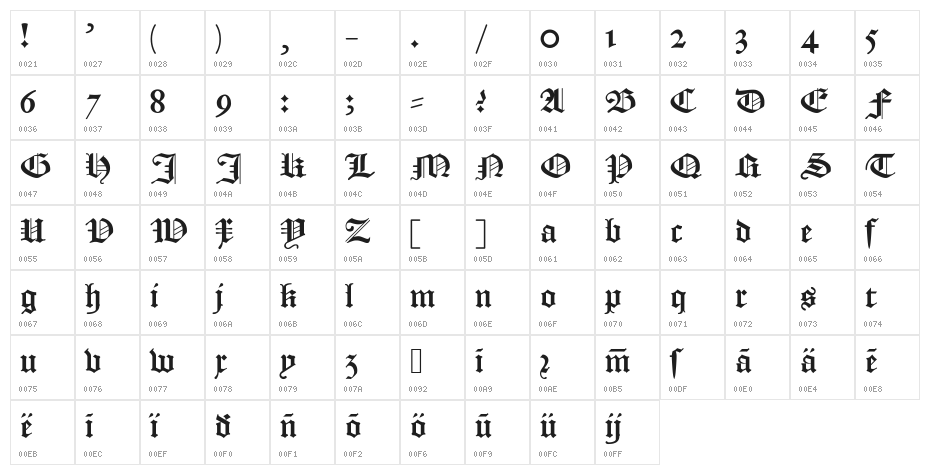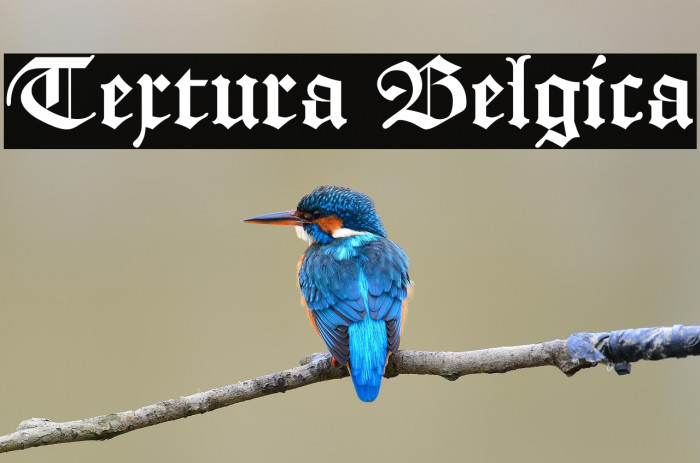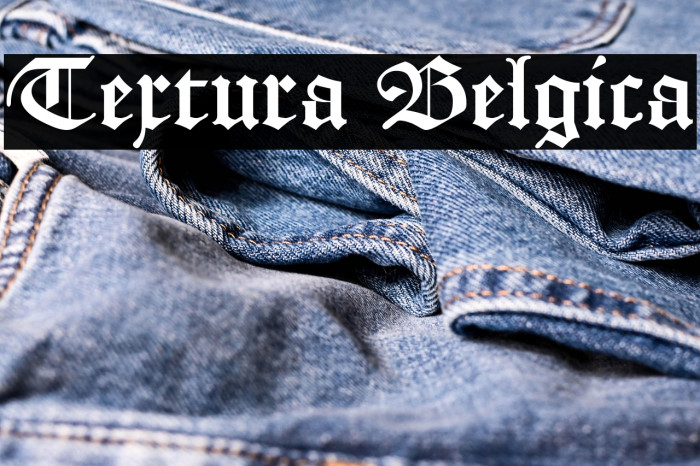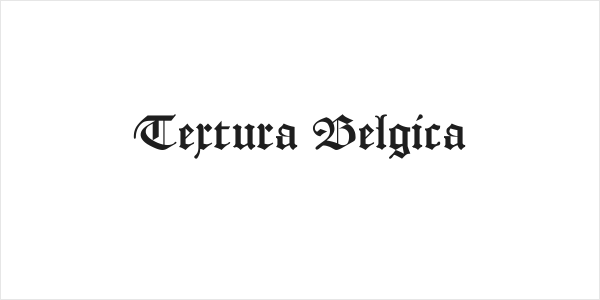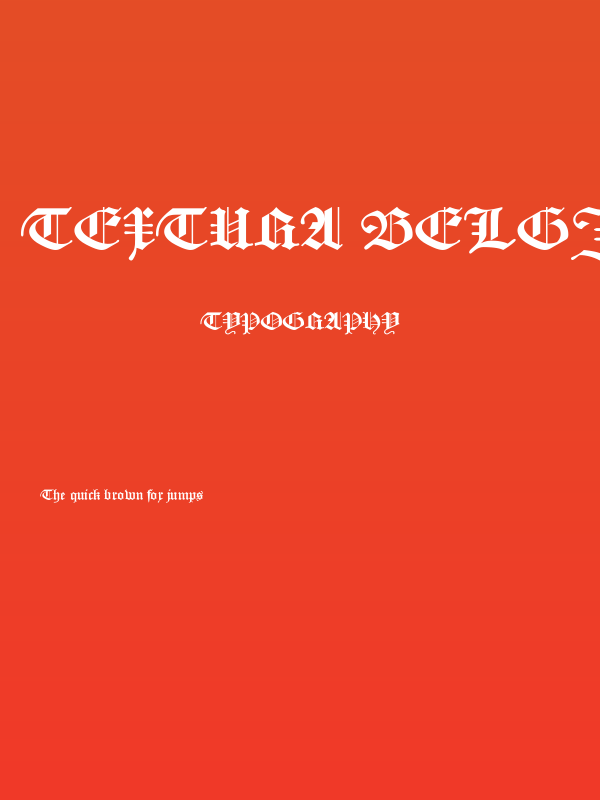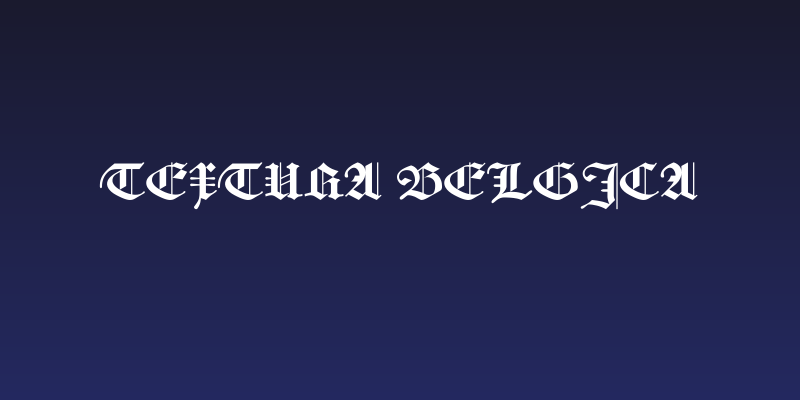
Textura Belgica Font
Textura Belgica Description
This font exhibits a traditional blackletter style, characterized by its intricate and ornate letterforms. The uppercase letters are bold and angular, with sharp serifs and decorative elements that give them a historic and formal appearance. The lowercase letters maintain the same intricate design, with a consistent stroke width that adds to the font's cohesive look. The numerals and special characters are designed to match the overall aesthetic, featuring the same boldness and decorative flair. This font is reminiscent of medieval manuscripts and is often associated with a sense of tradition and authority.
| Use Case | Headlines, Logos, Certificates |
| Proposed Projects | Ideal for projects that require a historic or formal touch, such as certificates, invitations, or branding for traditional businesses. |